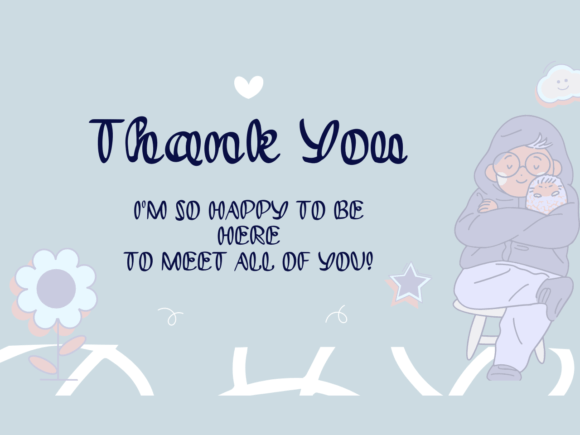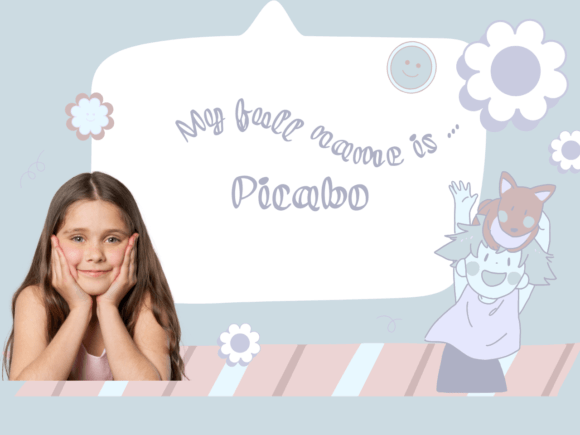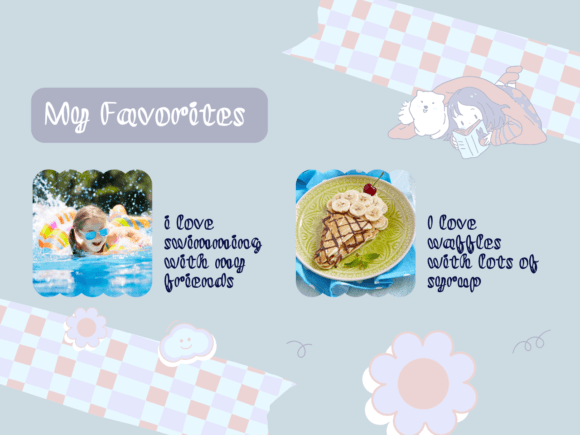
Introduction to Picabo Font
Have you ever been scribbling in your notebook, letting your pen dance across the page as your imagination runs wild? That’s where the magic of the Picabo Font begins. This unique font design is inspired by the free-flowing strokes of handwriting, crafted with the help of different brushes to give each character its own distinct personality.
As a designer, you know the importance of a high-quality design resource that can elevate your creative project to the next level. The Picabo Font is just that – a versatile and artistic typeface that can add a touch of whimsy to your work, whether you’re working on a branding project or a personal art piece. With its transparent background and intricate details, this font is perfect for designers looking to add a unique touch to their designs.
Whether you’re looking to download the Picabo Font for free or want to use it as a design element in your next project, this font is sure to increase the interest and engagement of your audience. So, get ready to unleash your creativity and take your designs to new heights with the Picabo Font.
Picabo Font
- High-quality font designed for creative projects, ideal for graphic designers and artists.
- Features a transparent background, allowing for seamless integration with different design elements and backgrounds.
- Designed with a unique aesthetic, making it perfect for creative projects that require a distinctive and eye-catching font.
- Perfect for designers looking for a high-quality, free font to elevate their creative project and stand out from the crowd.
Honest Review: Picabo Font
I recently had the chance to work with the Picabo Font, and I must say it’s a high-quality design resource that exceeded my expectations. The first thing that caught my attention was its modern and sleek aesthetic, perfect for a creative project that requires a unique touch.
What works well with the Picabo Font is its versatility. It’s available for free download, making it an excellent choice for designers on a budget. The font also features a transparent background, which allows for seamless integration with any design element.
- ✨ Clean and modern design
- ✨ Versatile and suitable for various creative projects
- ✨ High-quality design resource
However, there are a few limitations to consider. The Picabo Font is only available in a limited number of weights, which might not be ideal for designers who need a wide range of styles. Additionally, the font’s licensing terms may be restrictive for commercial use.
Overall, I’m impressed with the Picabo Font, and I would definitely consider using it for future creative projects. Its unique design and high-quality aesthetic make it a valuable addition to any designer’s toolkit.
- ⚠️ Limited number of weights available
Picabo Font
Tips for Getting the Most Out of Picabo Font
Here are a few tips to help you get the most out of the Picabo Font:
- Use the font with a transparent background to create a clean and minimalist look.
- Experiment with different font sizes and styles to add visual interest to your design.
- Combine the Picabo Font with other design elements, such as images and graphics, to create a unique and eye-catching design.
The Picabo Font is perfect for a variety of design projects, including:
- Branding and logo design
- Business cards and stationery
- Print design and marketing materials